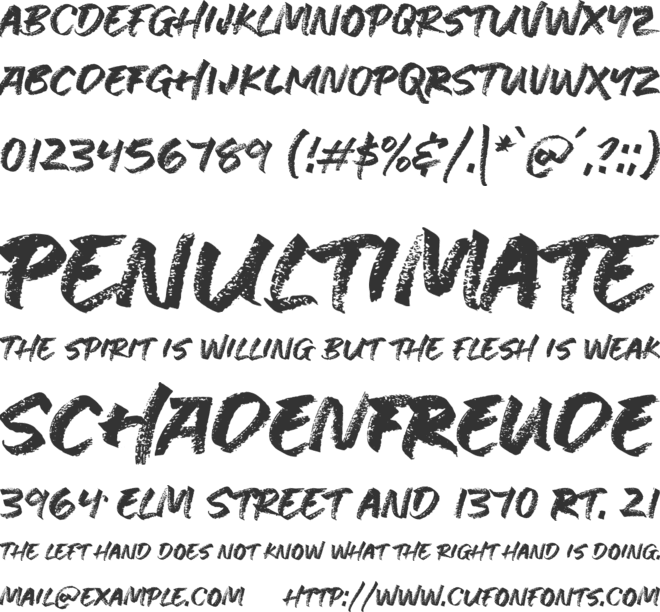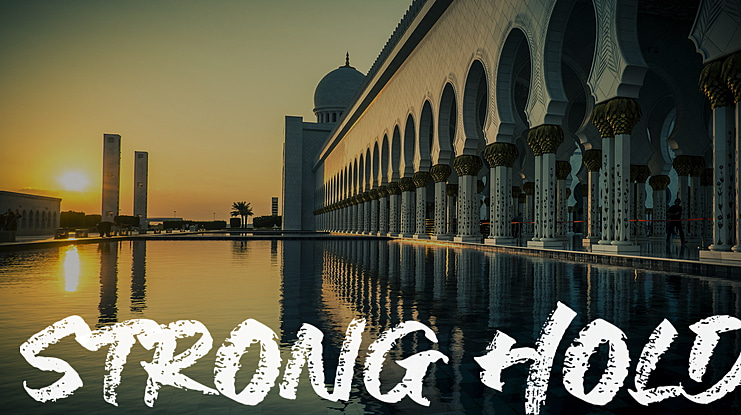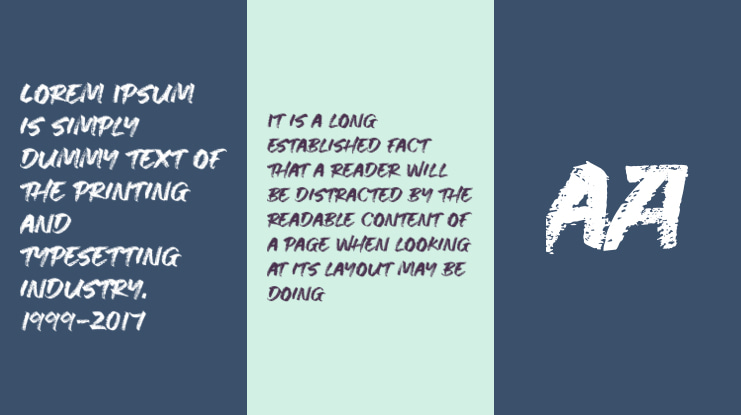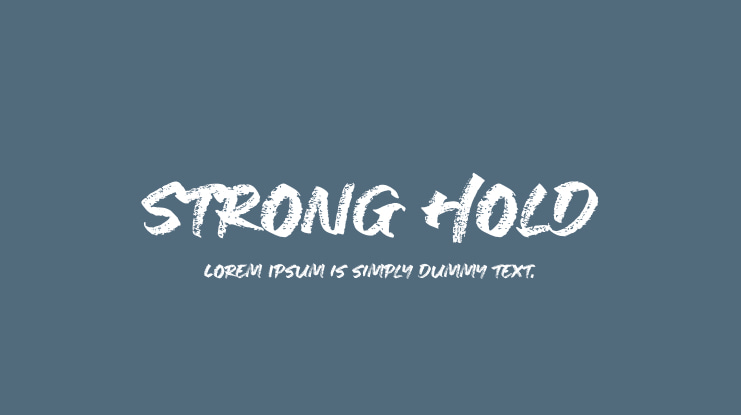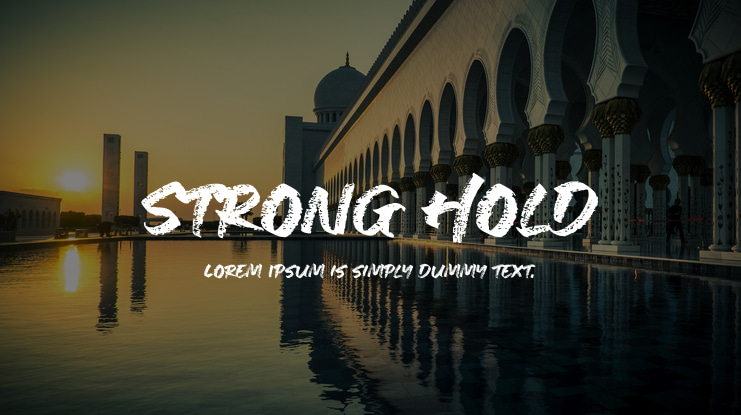
Strong Hold Font Family
If you’re looking for a unique brush font to attract your audiences or customers then we’ve got the font for you! Stronghold is a handwritten brush font crafted & designed by Hustle Supply Co. This is an all caps font. Looks strong and stylish. Great for merchandise designs, logos, posters, covers and more.